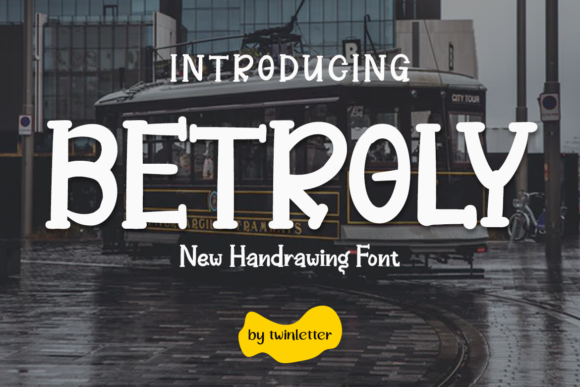
The Ultimate Guide to Betroly Font: Unleashing Creative Possibilities
I’ll never forget the time I was working on a project for a client who wanted a bold, yet playful font to capture the essence of their brand. I scoured the internet, tried countless fonts, but nothing seemed to fit the bill. That was until I stumbled upon Betroly Font. It was like a breath of fresh air – a perfect blend of confidence and whimsy that instantly elevated my design. In this article, I’ll share my experience with Betroly Font, its features, and how to make the most of it in various design platforms.
A First Impression: What Makes Betroly Font Special
Betroly is a bold yet playful display font, designed to bring a natural and unique style to a wide range of designs. Its versatility is truly remarkable, making it suitable for everything from branding and advertising to crafting and creative hobbies. The only limit is your imagination!
What I Love About Betroly Font
• Unique and eye-catching design: Betroly Font stands out from the crowd with its distinctive style that’s both bold and playful.
• Highly versatile: This font can be used in a variety of design projects, from digital to print.
• 🌈 Excellent for branding and advertising: Betroly Font is perfect for creating memorable logos, taglines, and marketing materials.
While Betroly Font is an excellent choice for many design projects, there are a few things to keep in mind:
• 🤔 Legibility at small sizes: Like many display fonts, Betroly may not be the best choice for body text or small font sizes.
• ⚠️ Overuse can be overwhelming: While Betroly Font is stunning, using it excessively can be overwhelming. Balance is key.
The Backstory Behind Betroly Font
Betroly Font was designed with the goal of creating a bold, yet playful display font that would inspire creativity and bring a fresh perspective to design projects. The designer aimed to craft a font that would be both versatile and unique, making it suitable for a wide range of applications.
Q: What type of projects is Betroly Font best suited for?
A: Betroly Font is ideal for branding, advertising, logos, titles, headings, and creative projects that require a bold and playful touch.
Q: Is Betroly Font available in different weights or styles?
A: Betroly Font is a single font style. However, you can experiment with different sizes, colors, and OpenType features to create variations.